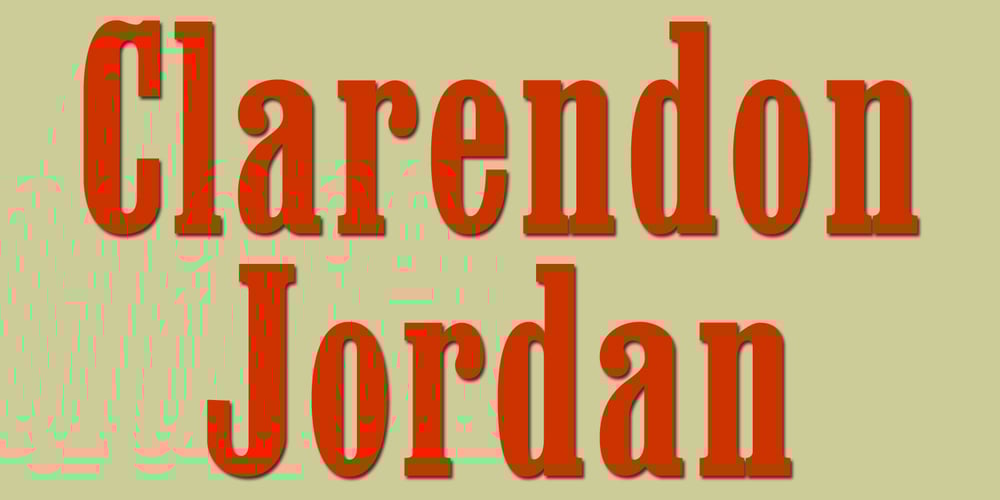
Clarendon Jordan Font Family was designed by Jordan Davies and published by Wooden Type Fonts. Clarendon Jordan contains 1 styles and family package options. Clarendon is the name of a slab-serif typeface that was released in 1845 by Thorowgood and Co. (or Thorowgood and Besley) of London, a letter foundry often known as the Fann Street Foundry. This current design is a somewhat condensed version of the font.